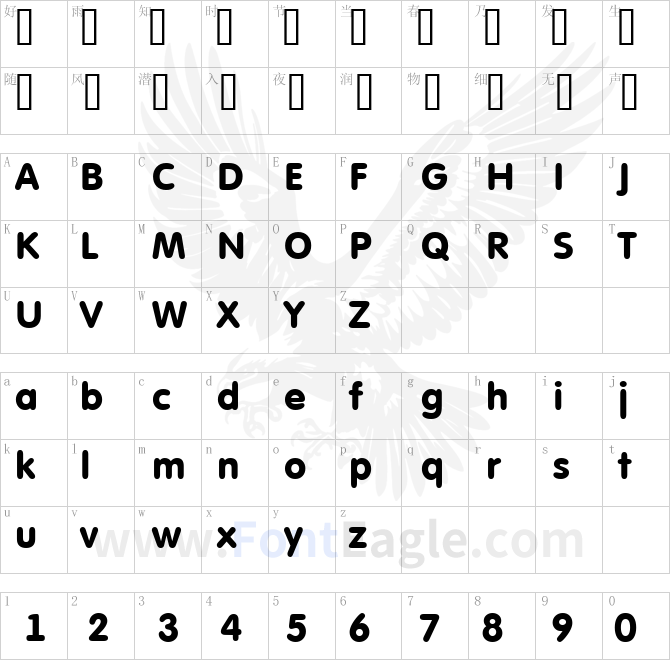
a_FuturaRound-Bold is a great font, widely used in graphic design, single-page menu design, poster design and other fields, and is deeply loved by designers.a_FuturaRound-Bold download.